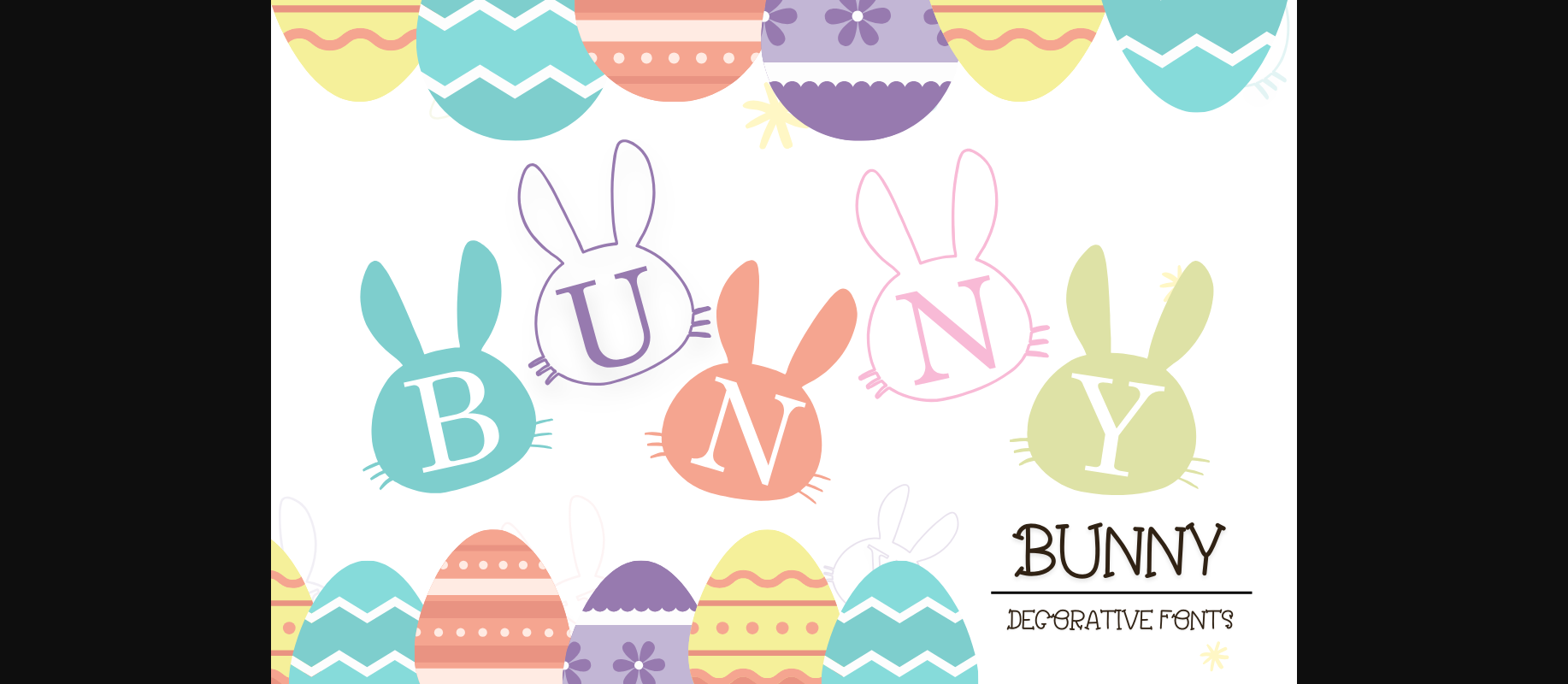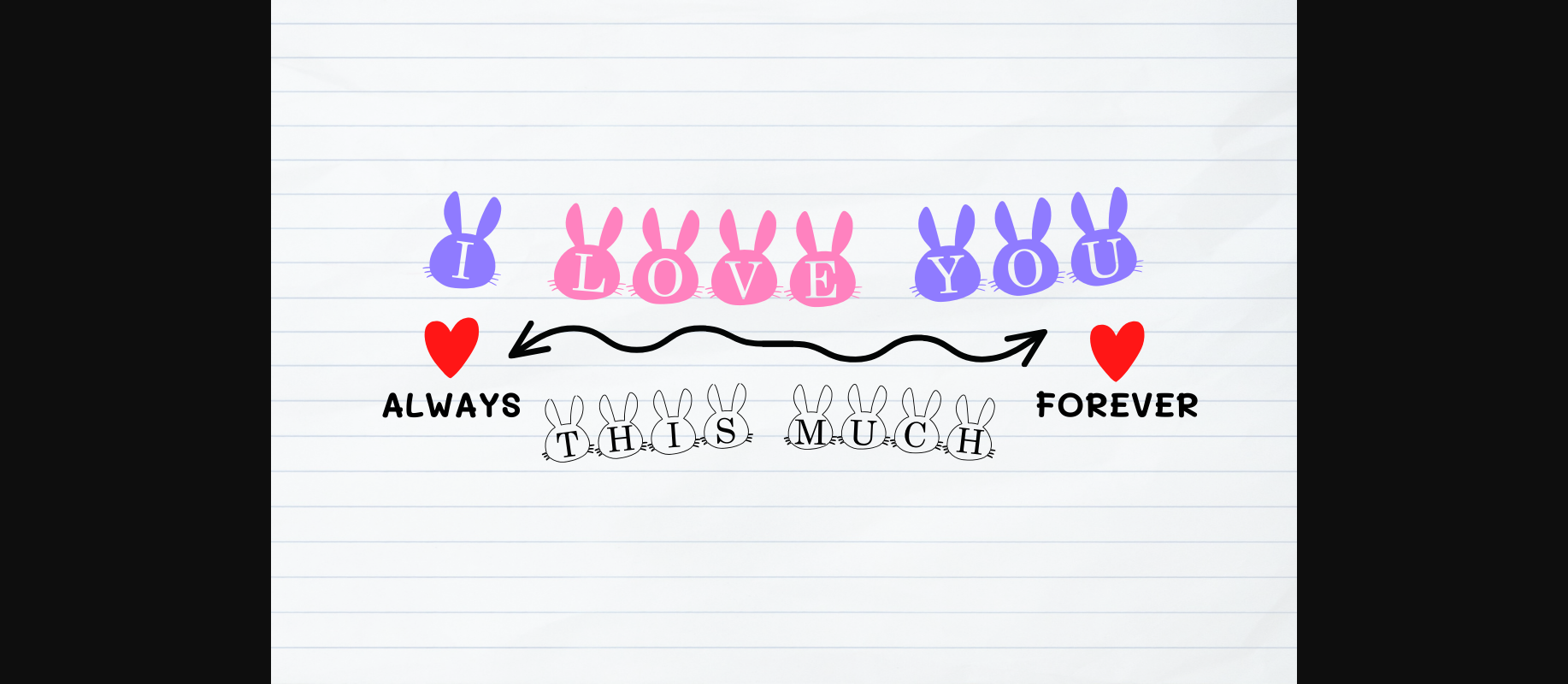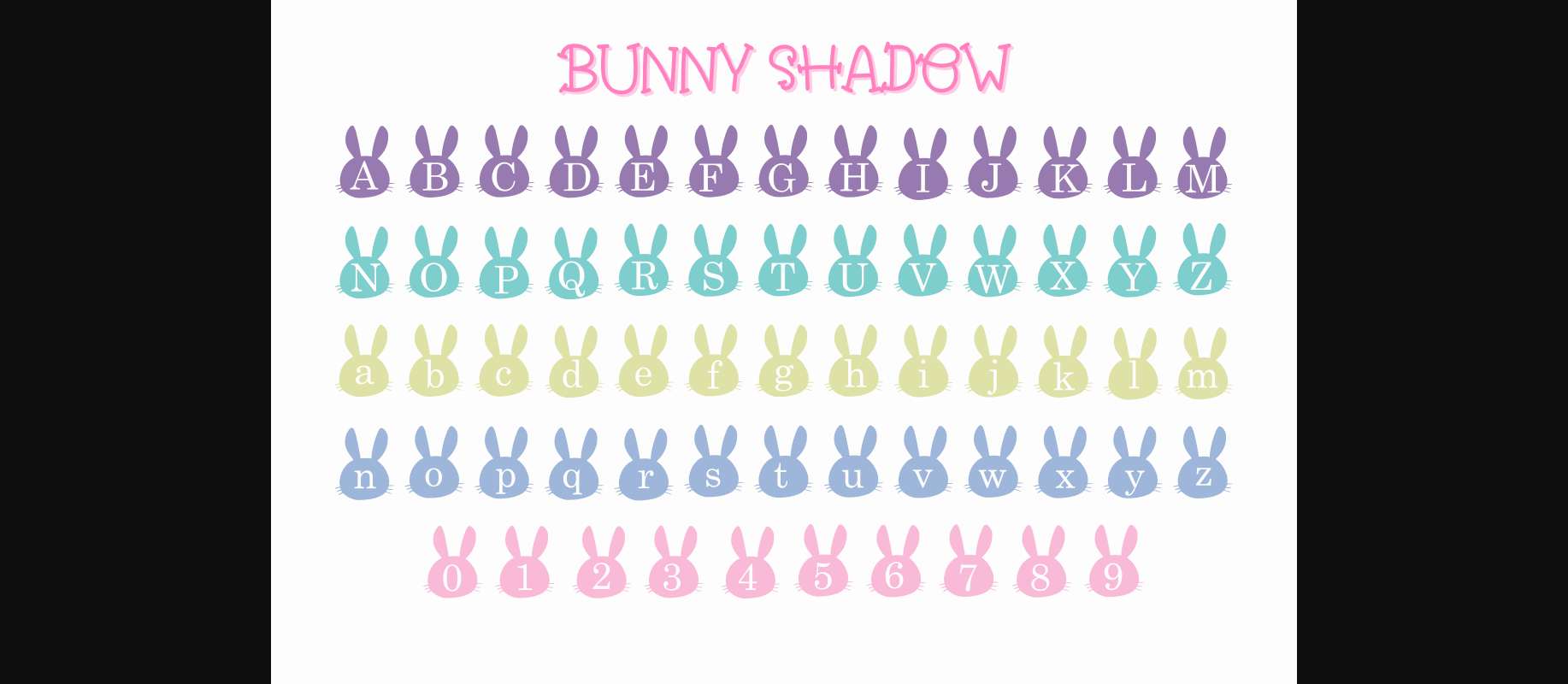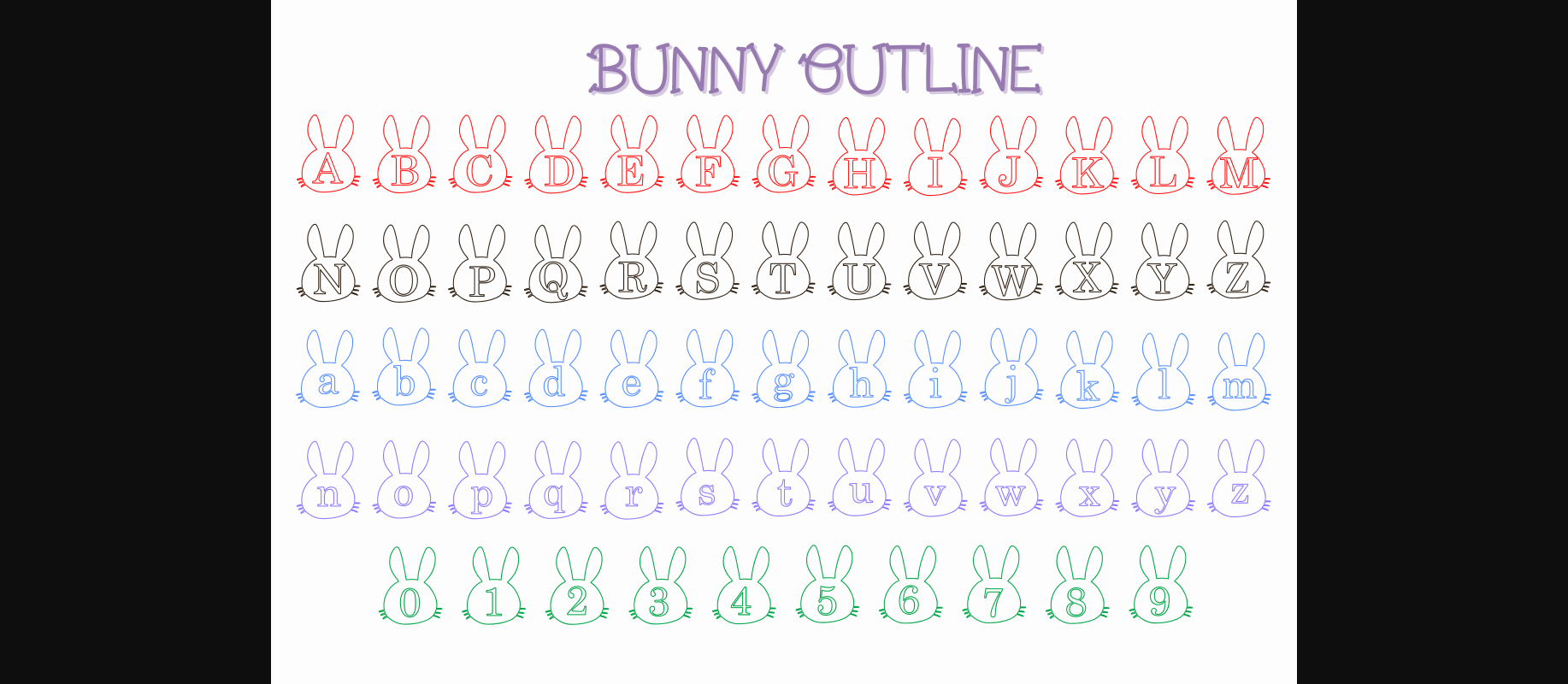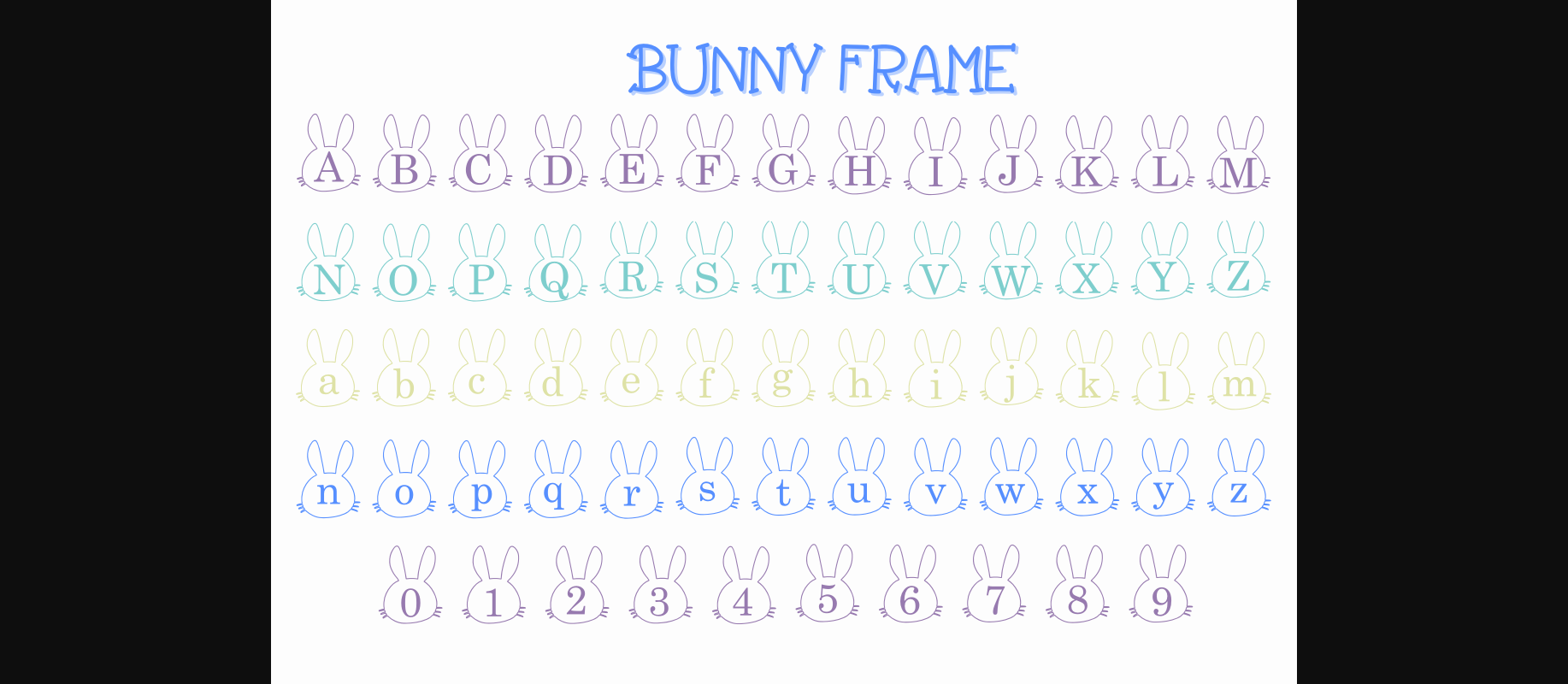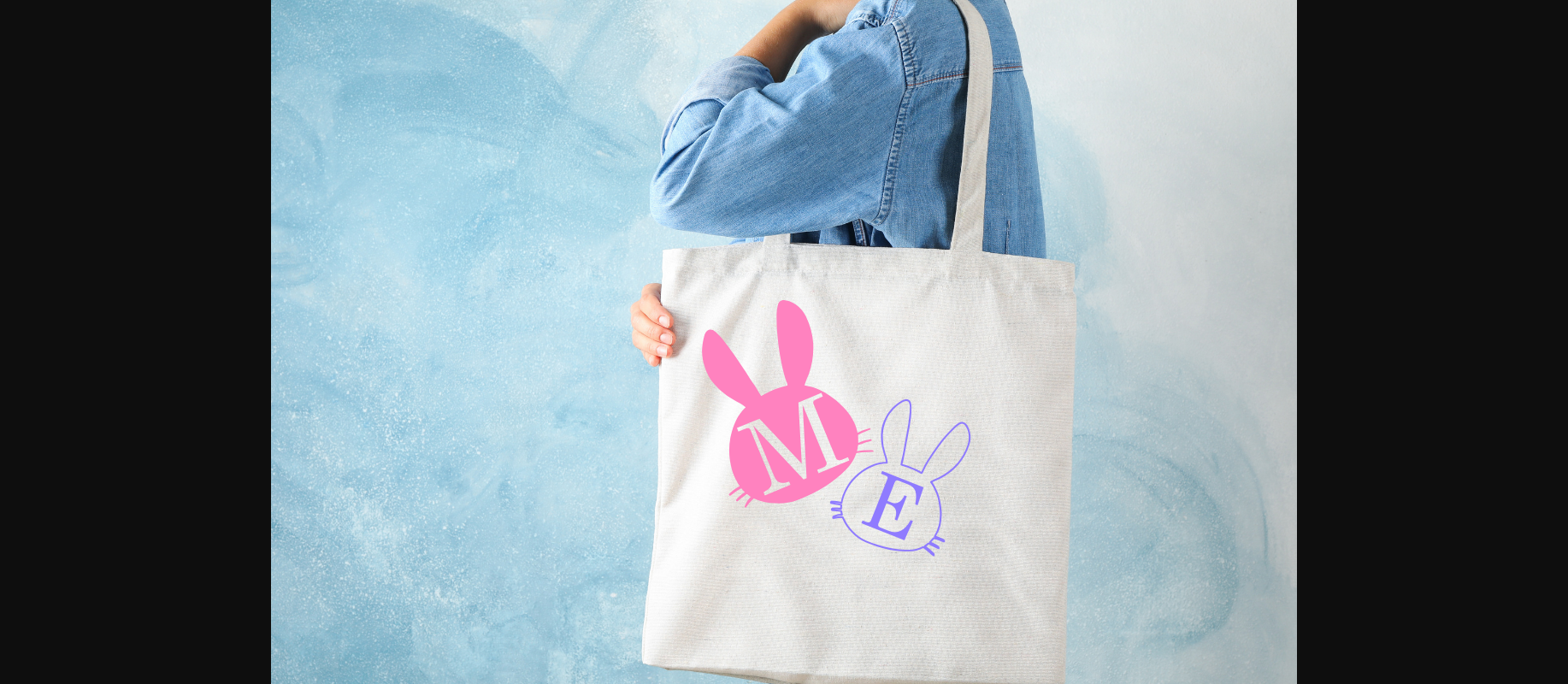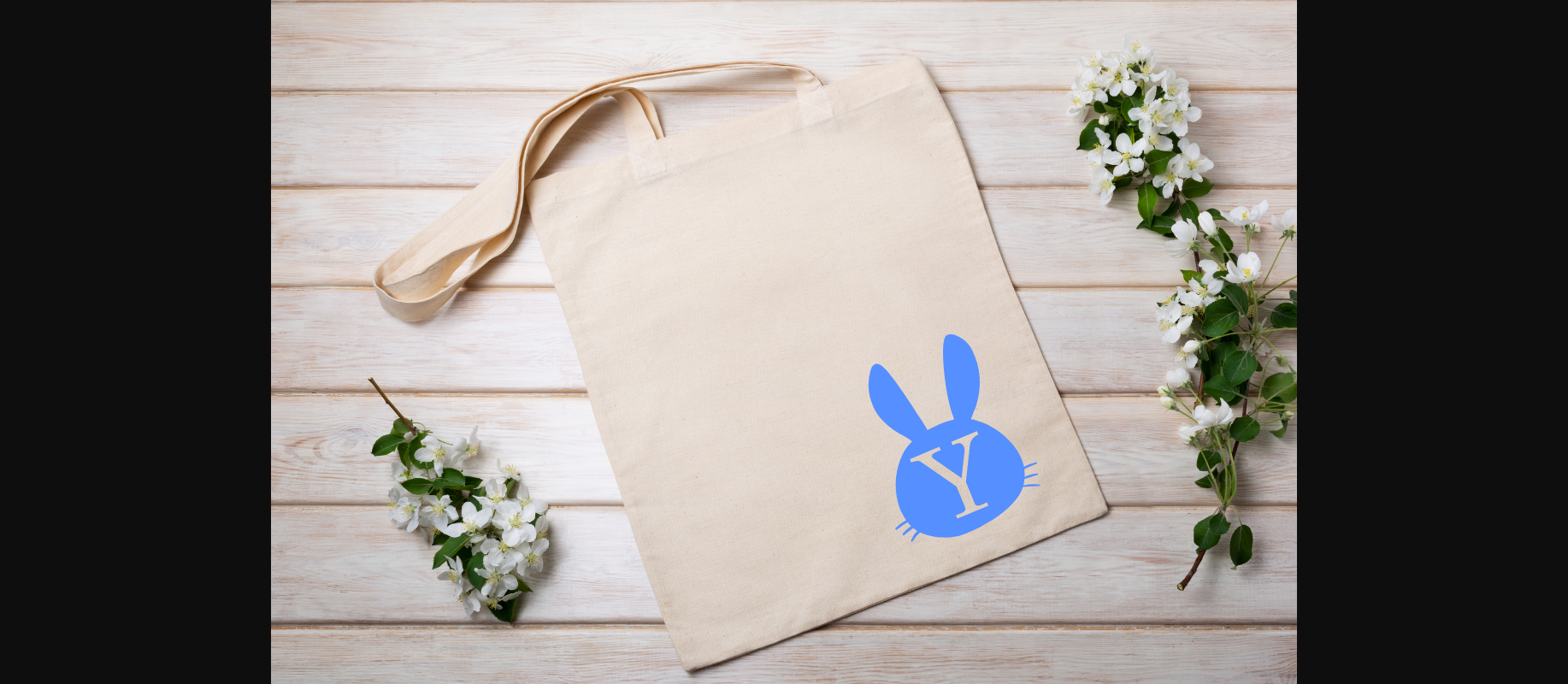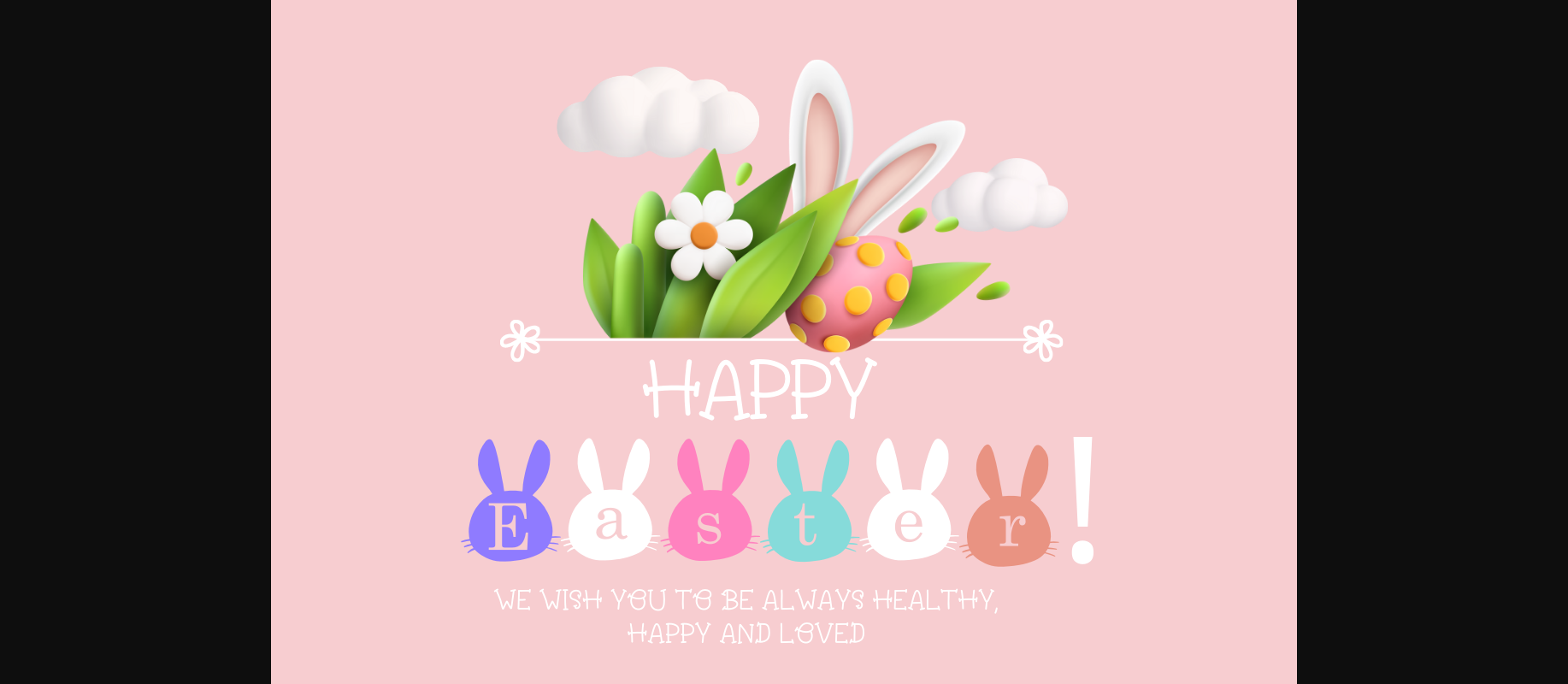
Bunny Font
About Bunny Font
Meet Bunny, the delightful decorative font where each letter is nestled within an adorable bunny head. With its playful charm and cute design, Bunny adds a touch of whimsy to any project. Perfect for adding a dash of fun to invitations, posters, or any creative endeavor, Bunny is sure to bring smiles to faces of all ages.